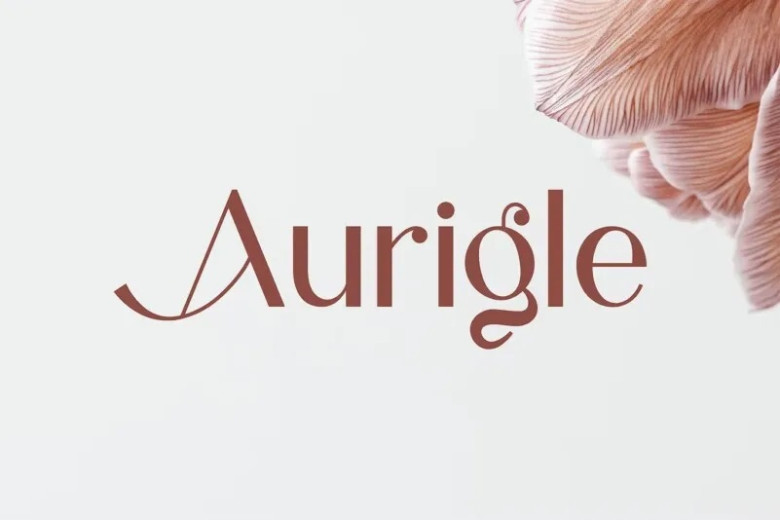
Aurigle Font
Aurigle, an elegant sans serif font is now free for personal use and download. This version includes all uppercase letters, lowercase characters and special characters.
Aurigle is ideal for creating logos, branding and travel promotions. Additionally, Aurigle can also be used to layout magazines, beauty product packaging or quote pages.
Aurigle Sans Serif Font